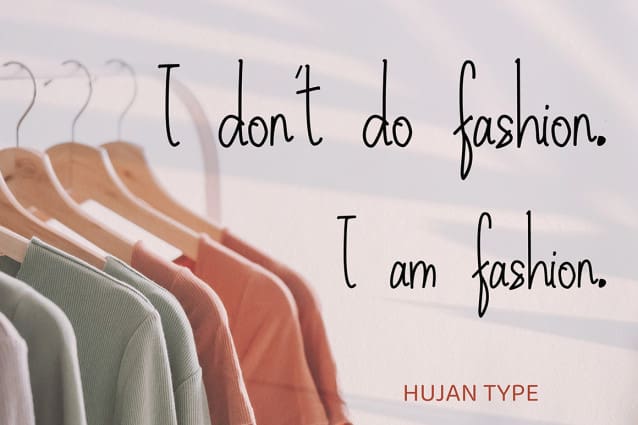
Saffany Script Font
Saffany Script Font is a monoline script handwritten font that has a natural style in each letter and will be very suitable for signatures, branding designs, packaging designs, watermarks, logo designs, wedding designs, stationery, business cards, lettering, and more.